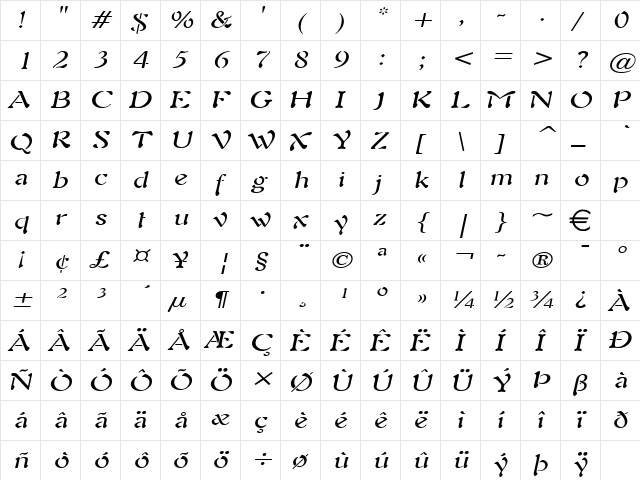
Freedom9Wide Italic Font Preview
Freedom9Wide Italic
Freedom9Wide Italic Font Details
Design Context for Freedom9Wide Typeface
Freedom9Wide takes a measured approach to typography — its balanced proportions and neutral character make it a reliable workhorse for both digital and print work. The dynamic lean of this cut emphasises speed and emphasis in any layout.
Pro Tip: Use Freedom9Wide for emphasis, pull quotes, and subheadings where its slanted energy can add rhythm to the layout.